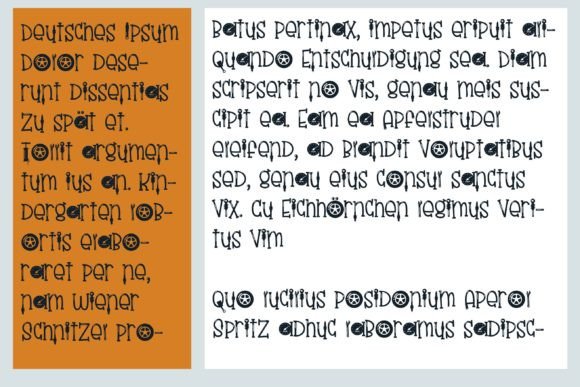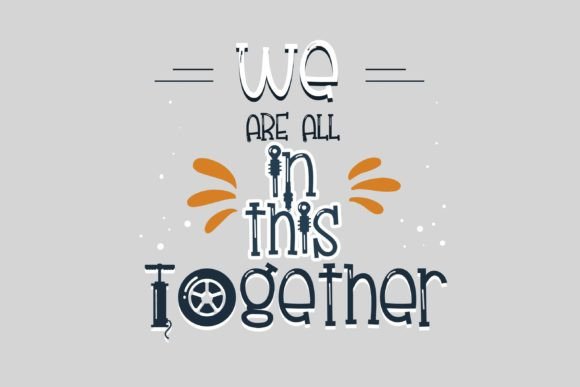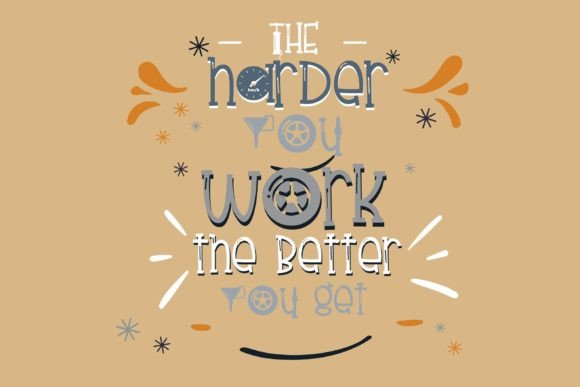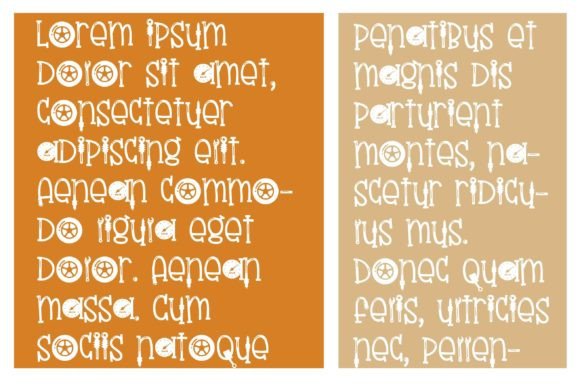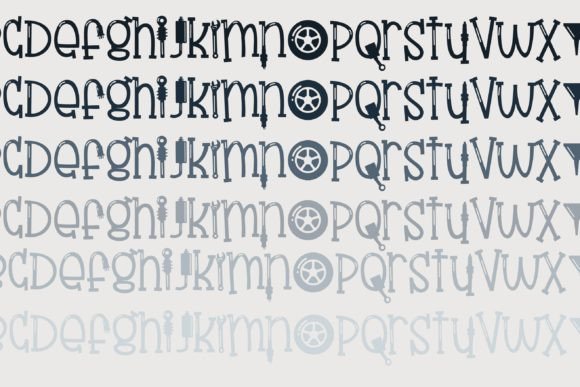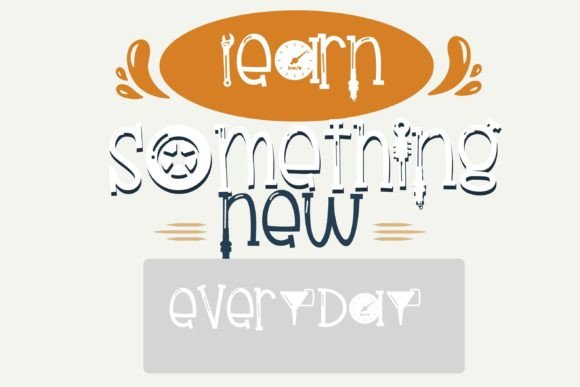
The Perfect Match for Your Next Design Project
Have you ever stared at a blank canvas, feeling the weight of a looming deadline and a sea of possibilities stretching out before you? The creative block is a familiar foe for many designers, but what if I told you that the solution lies in the subtle details? A well-chosen font can elevate your design from mere mortal to masterpiece, and Automotive Parts Font is the perfect tool for the job.
As a masterfully designed display font, Automotive Parts Font is more than just a pretty face – it’s a key to unlocking your full creative potential. Whether you’re working on a branding project, a packaging design, or a digital campaign, this font is sure to bring your ideas to life in a way that’s both eye-catching and memorable.
What sets Automotive Parts Font apart is its unique blend of style and versatility, making it a valuable addition to any designer’s toolkit. With its sleek lines and modern aesthetic, this font is sure to drive your designs forward – and with its endless customization options, you’ll be able to fine-tune it to perfection.
Key Features of Automotive Parts Font
- Font Family: A unique and comprehensive font family designed specifically for automotive parts documentation, with a wide range of characters and symbols.
- Character Set: Includes a vast set of characters, including letters, numbers, symbols, and special characters, specifically designed for automotive parts documentation, such as part numbers, diagrams, and schematics.
- Legibility and Readability: Designed for clear and easy-to-read text, even at small sizes, with a clear and consistent font style that reduces eye strain and improves comprehension.
Automotive Parts Font Review
Overall, I think the Automotive Parts Font is a solid choice for anyone looking for a font that screams “mechanic shop” or “auto repair.” ✨ It’s a bold, industrial-looking font that’s perfect for headers or titles, and it’s sure to grab the viewer’s attention.
One thing I like about this font is its versatility. ✨ It’s available in a range of weights, from light to bold, which makes it easy to use in a variety of contexts. It’s also highly customizable, with plenty of options for adjusting the font’s size, color, and spacing.
- Bold, industrial look that’s perfect for automotive-themed designs
- Available in a range of weights for added flexibility
- Highly customizable with plenty of options for adjusting font settings
- May be too bold or overpowering for certain designs
- Lack of italic or oblique styles, which may limit its use in certain contexts
- Not as readable at small font sizes, which may make it difficult to use in certain situations
Overall, I’d give the Automotive Parts Font 3.5 out of 5 stars. While it’s a solid choice for certain types of designs, its limitations may make it less suitable for others.
Getting the Most Out of the Automotive Parts Font
Experiment with different font sizes, colors, and styles to create a unique look for your design. Use the font in combination with other design elements, such as images and graphics, to create a cohesive and engaging design.
The Automotive Parts Font is ideal for creating designs related to the automotive industry, such as:
- Logos and branding for automotive businesses
- Labels and signs for car parts and accessories
- Presentations and brochures for automotive products
- Custom signs and decals for cars and trucks